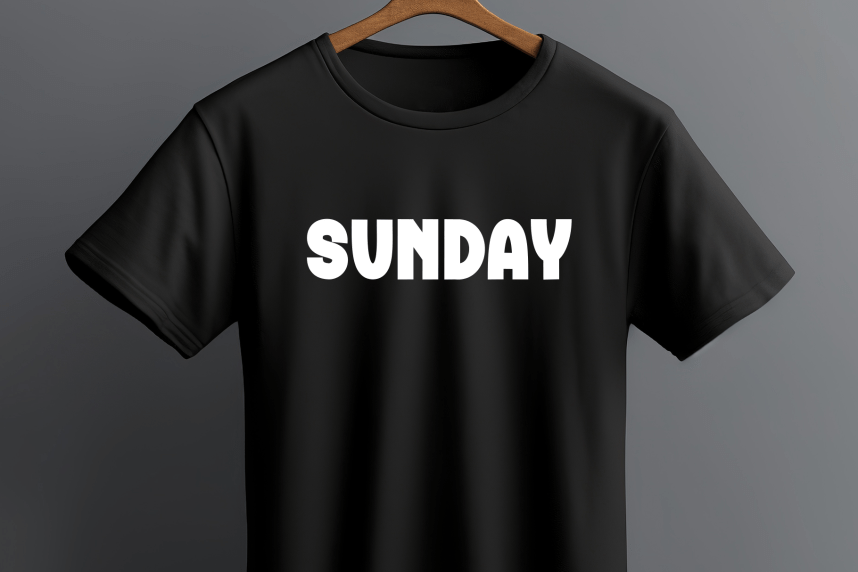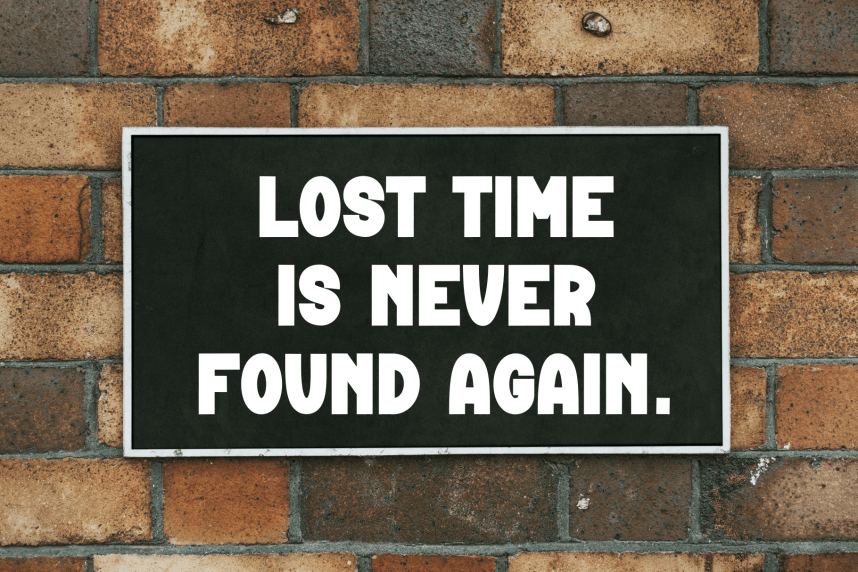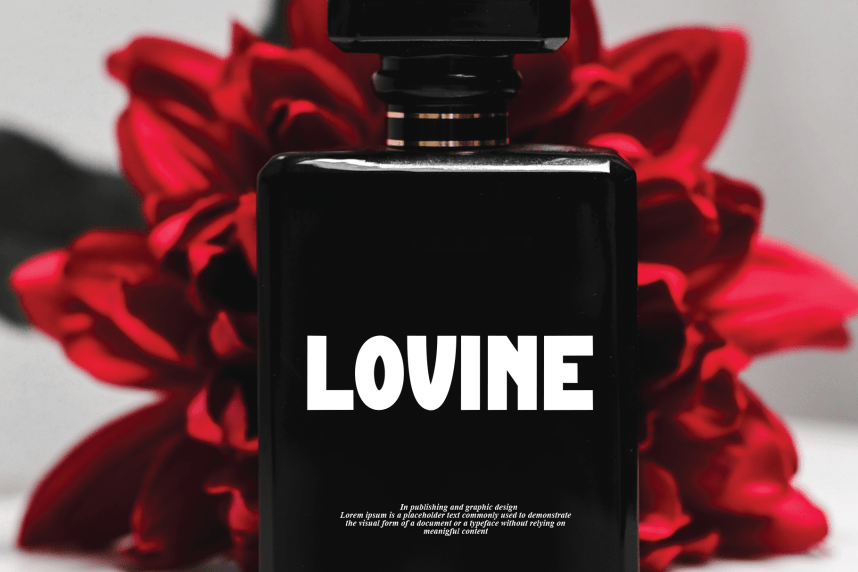
Magic Squad Playful Font
Magic Squad Playful Font is a sweet and friendly handwritten display font. Cute and fun, this font is ideal for writing wedding invitations, cards, or any other design that might need a playful touch!